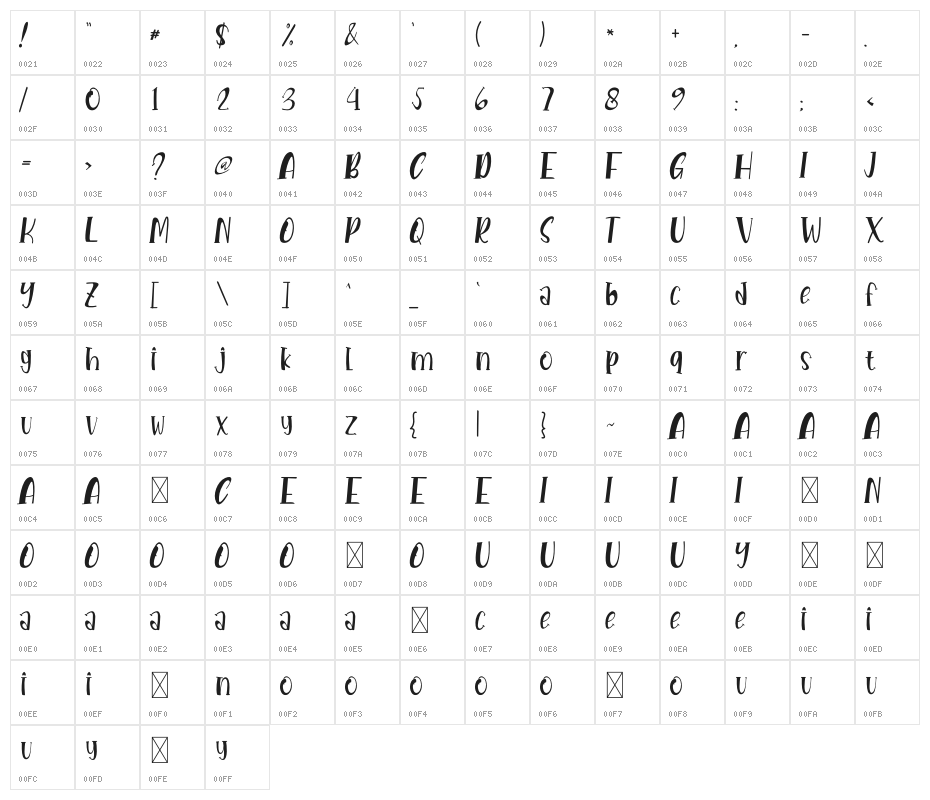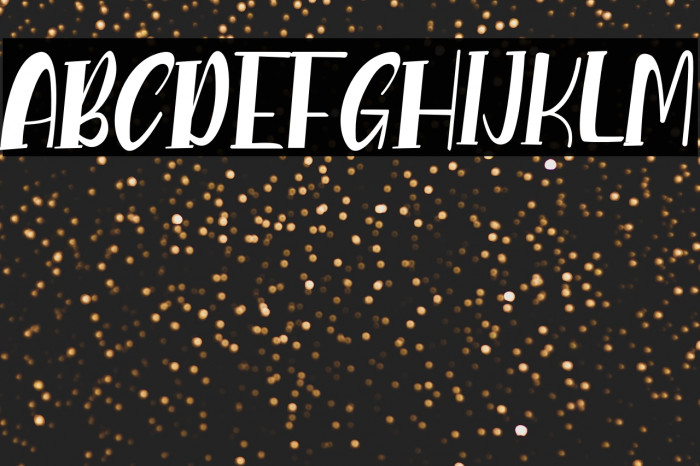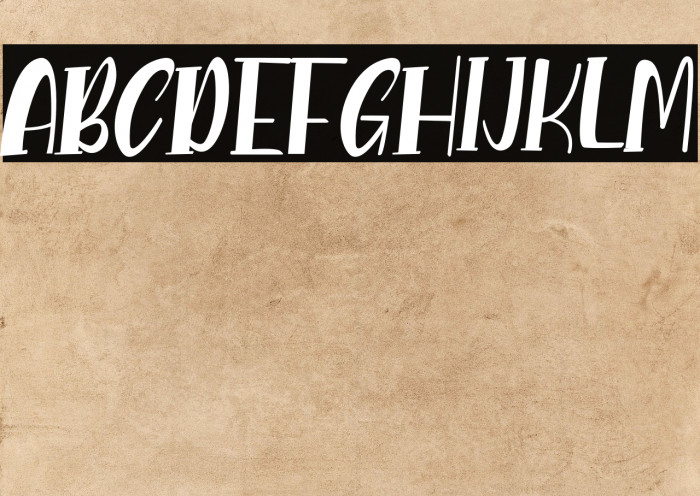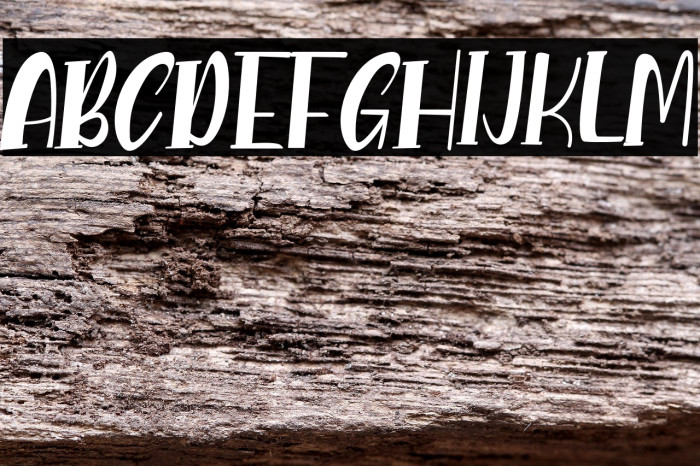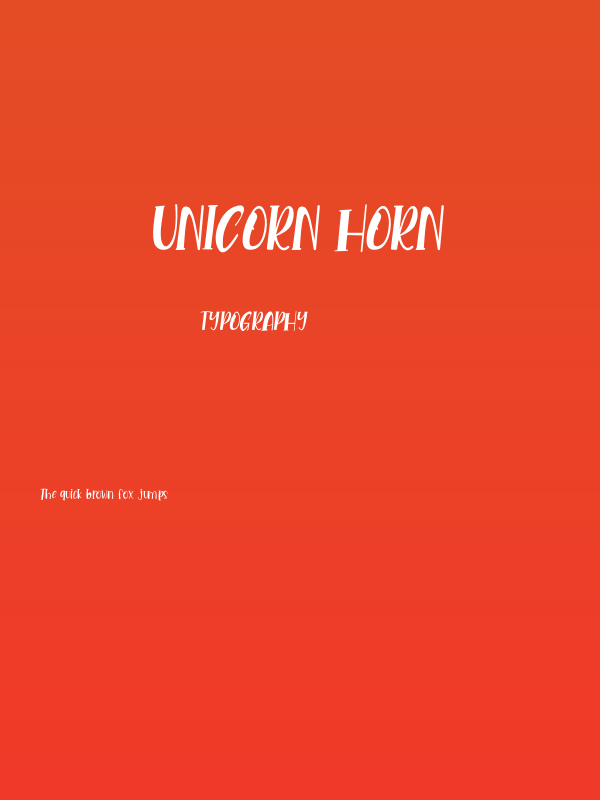
Unicorn Horn Font
Unicorn Horn Description
This font features a whimsical and playful design, characterized by its flowing, curvy lines and varying stroke widths. The uppercase letters are bold and dynamic, with a slight slant that adds a sense of movement. The lowercase letters maintain a consistent style, offering a harmonious blend of thick and thin strokes. Numbers and special characters follow the same playful aesthetic, making them stand out with their unique shapes. This font's overall appearance is both artistic and approachable, suitable for creative projects that require a touch of fun and elegance.
| Proposed Projects | Ideal for children's book covers, playful branding, greeting cards, and creative posters. |